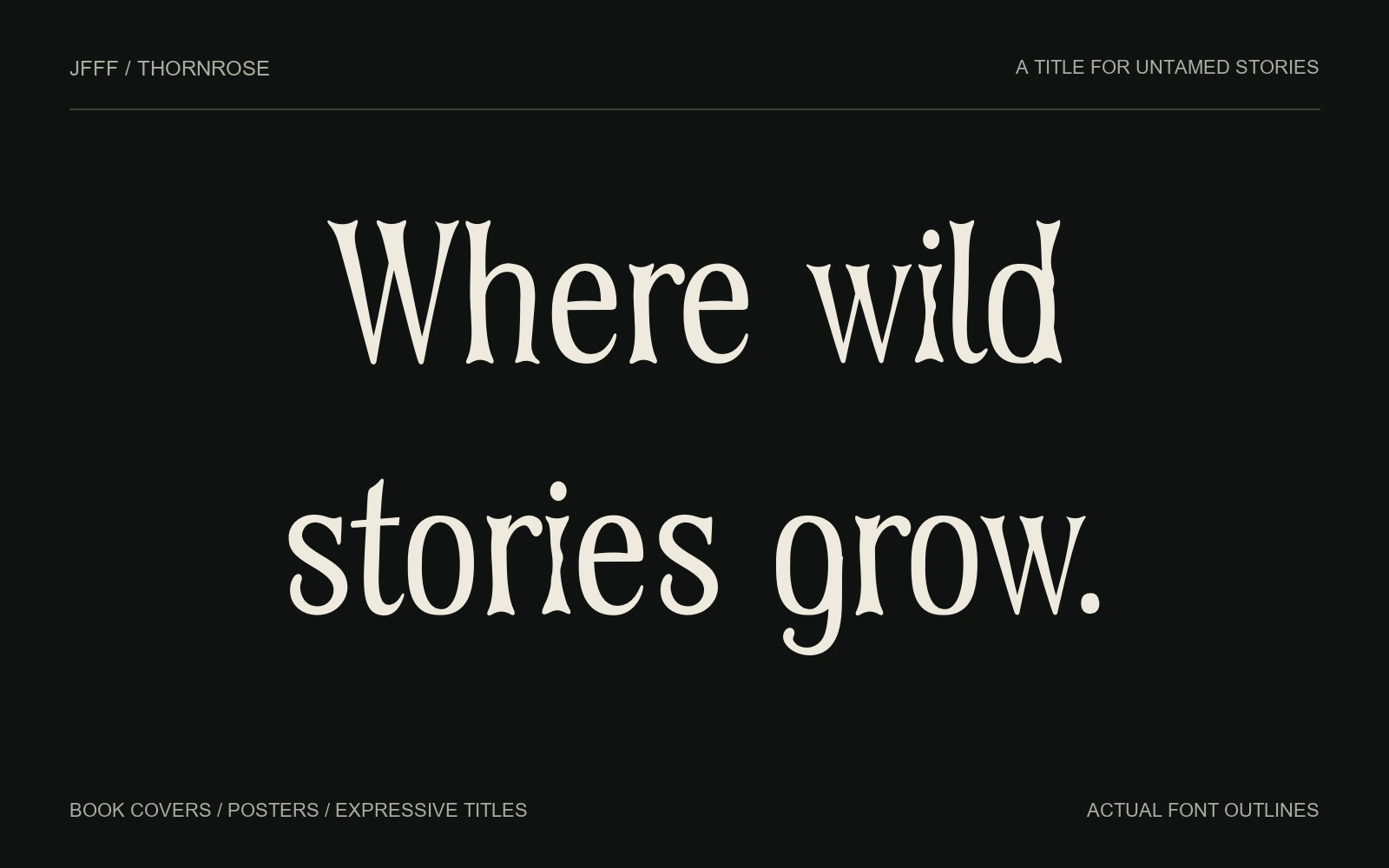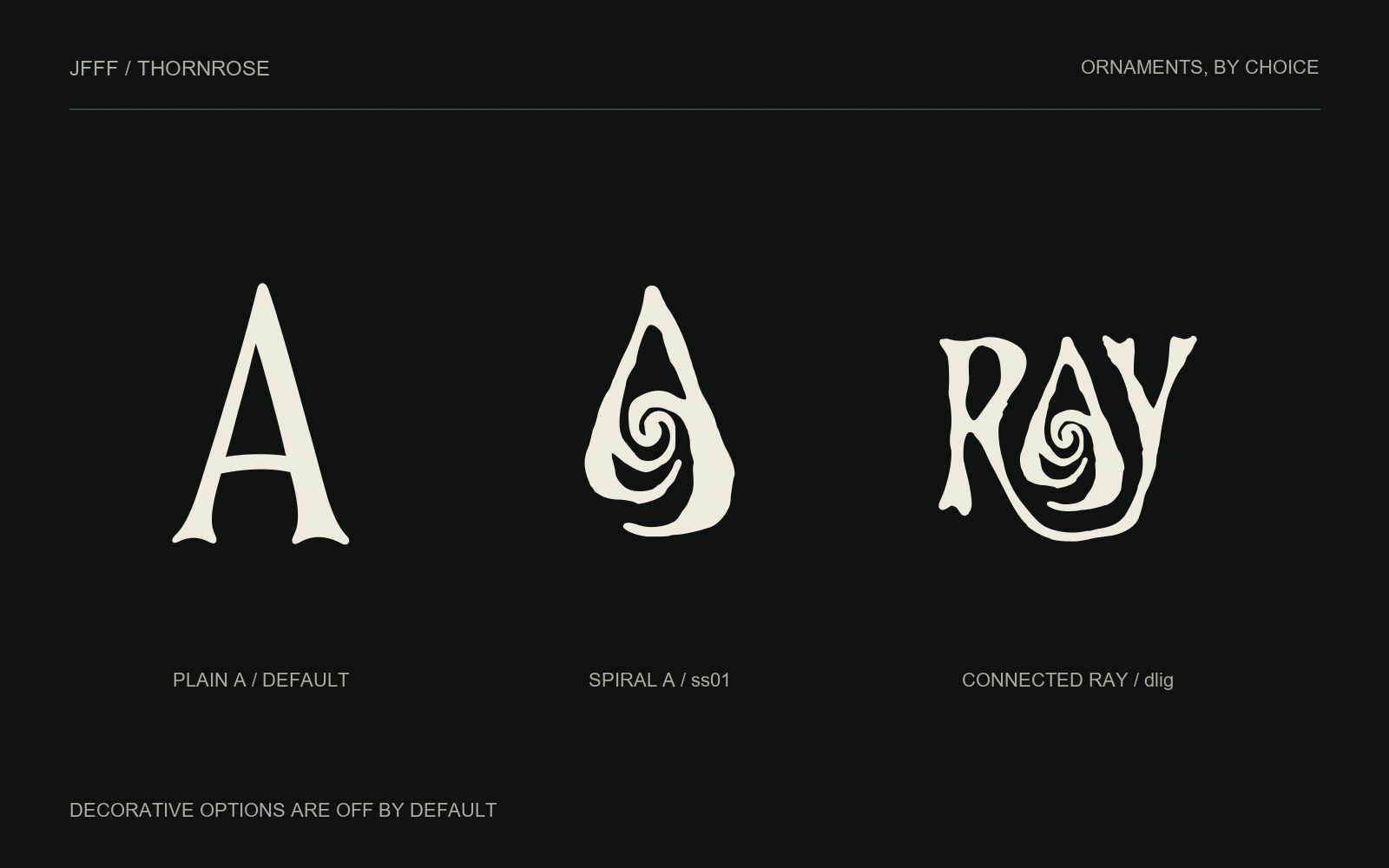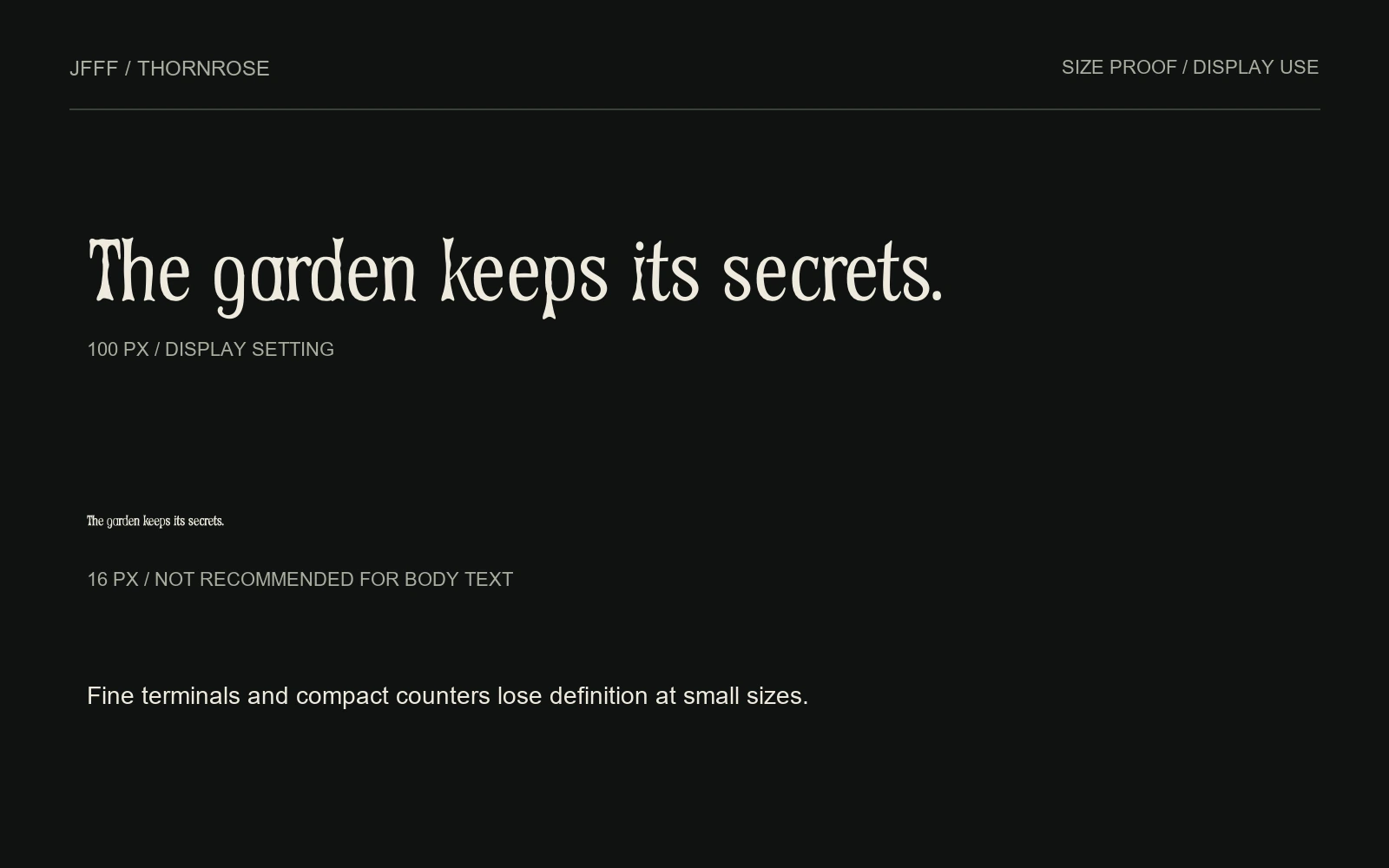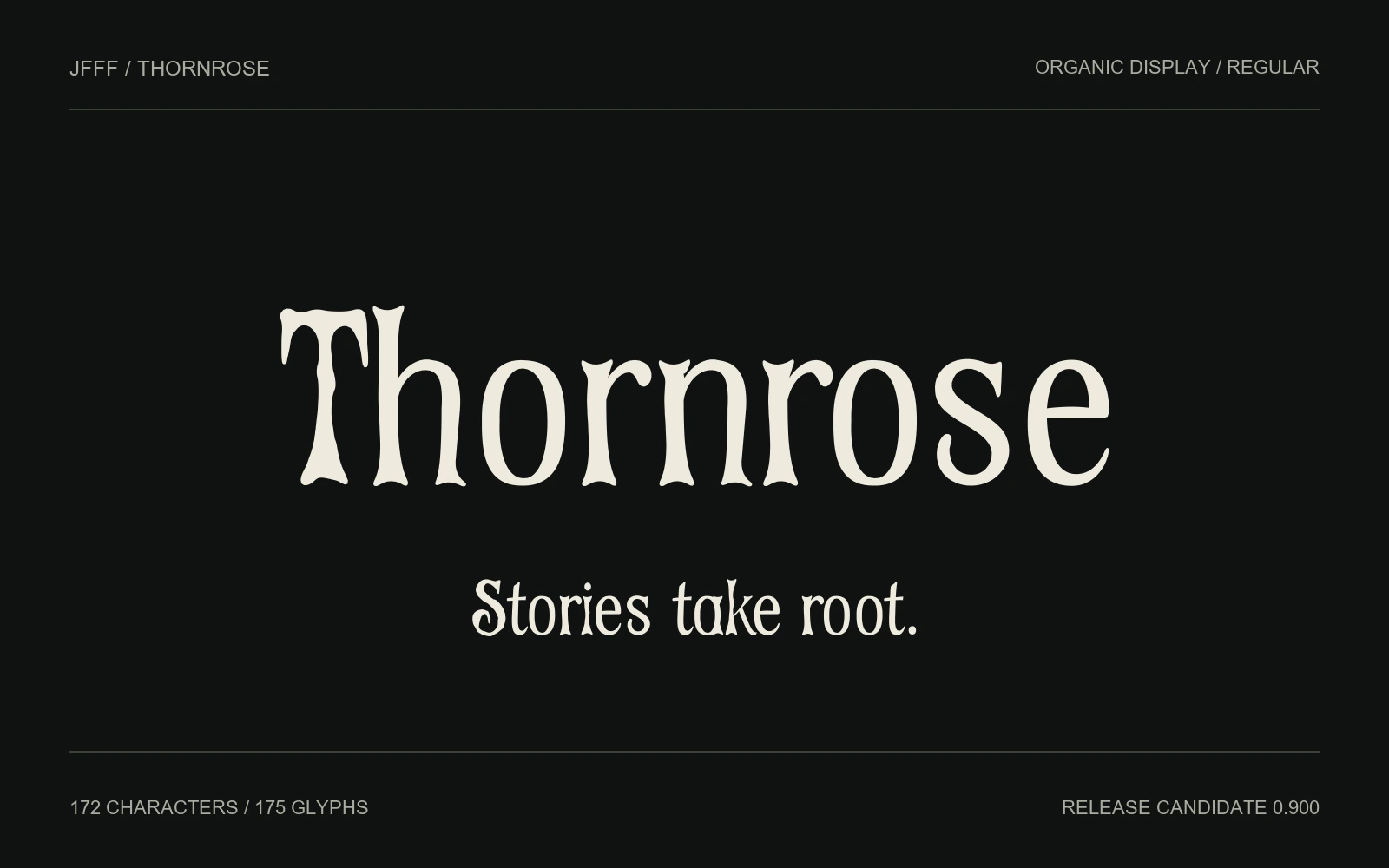
Thornrose organic display font with tapering strokes and thorn-like terminals.
Organic curves, tapering strokes and thorn-like terminals give Thornrose its storybook character. Use it for large titles, book covers and posters, preferably at 48–120 pt.
The default A is quiet. Enable Stylistic Set 1 (ss01) for the spiral A, or Discretionary Ligatures (dlig) for the connected RAY ornament. Both decorative options are off by default.
Book covers, fantasy titles and expressive posters at 48–120 pt. Start with the default letters and add the optional spiral A only where it helps the title.